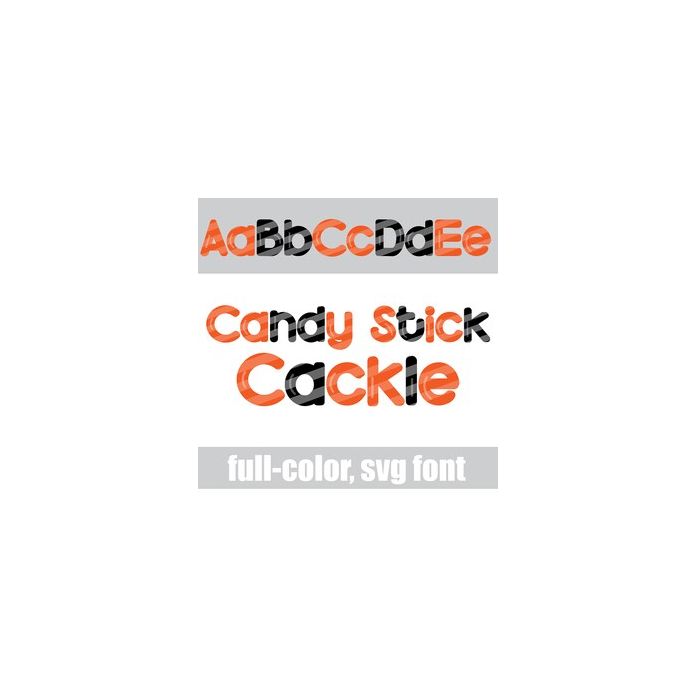
This full-color font features a candy-stick letter style in a Halloween color palette. There is an alt case w/ additional colors you can access through your system or Silhouette's glyph map.